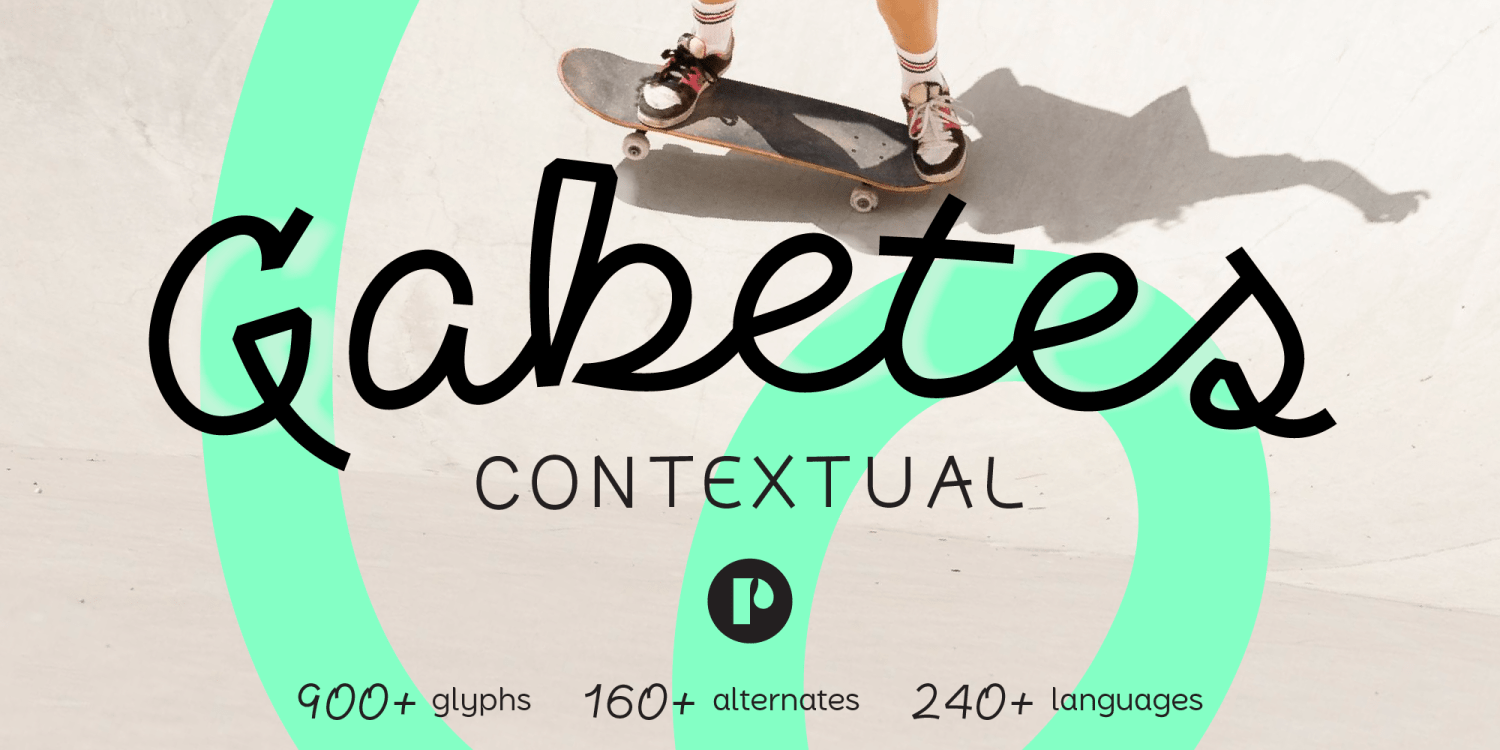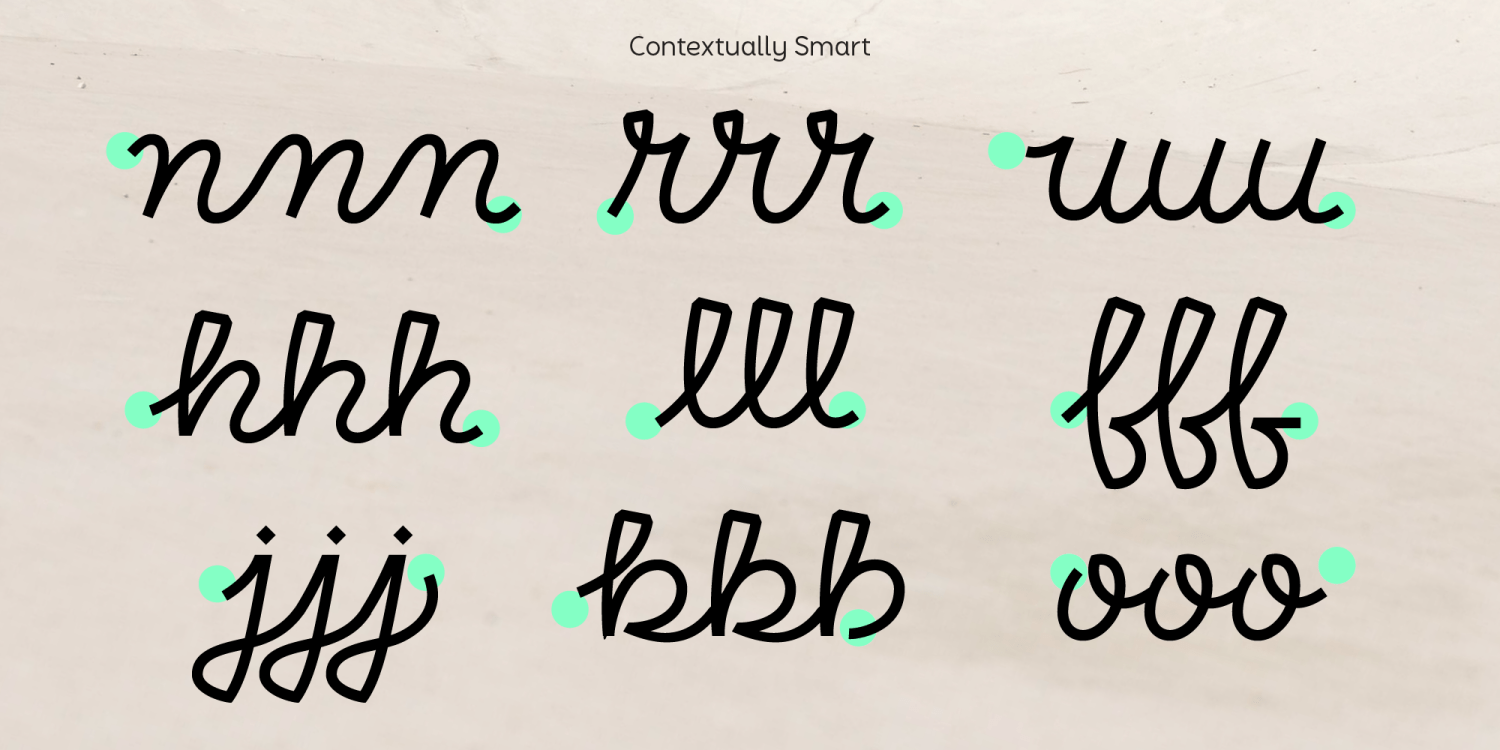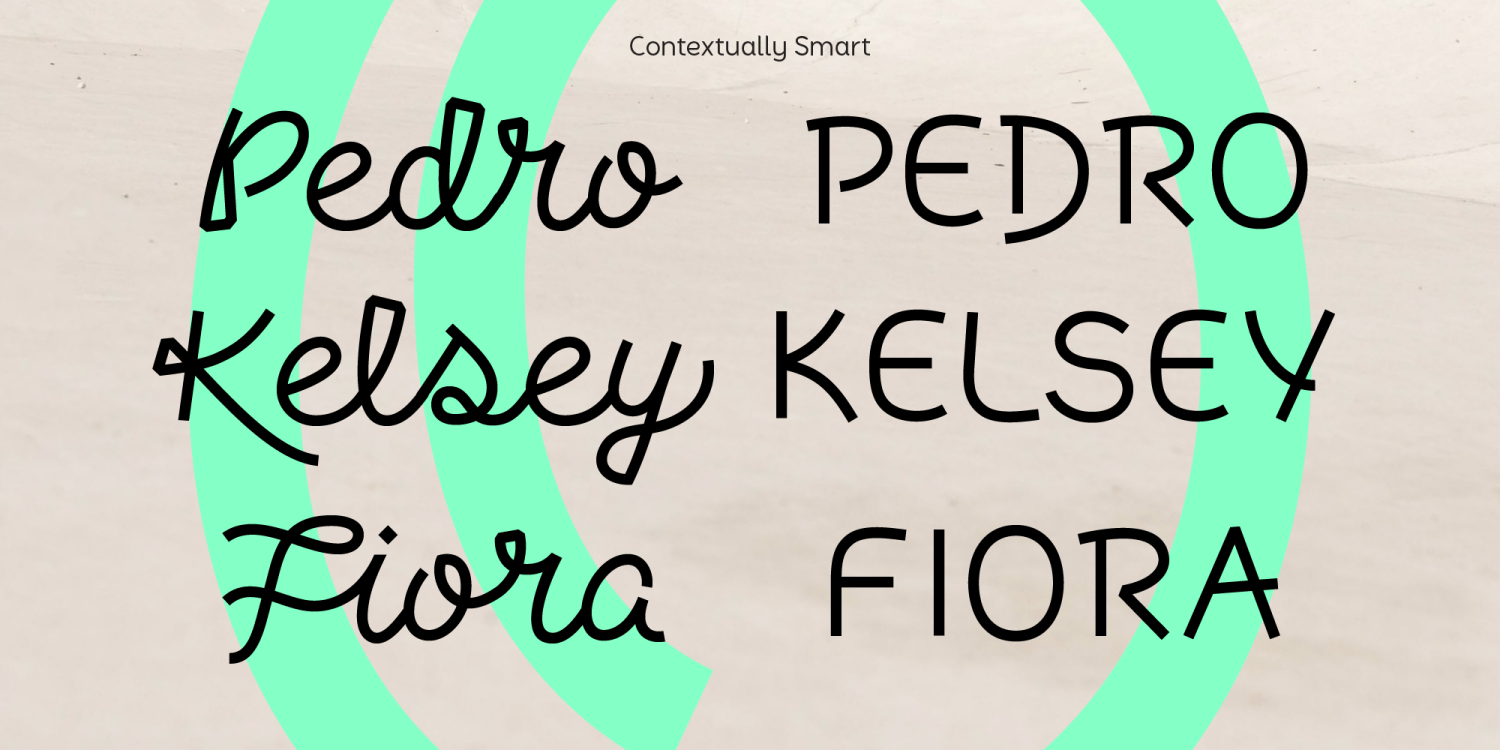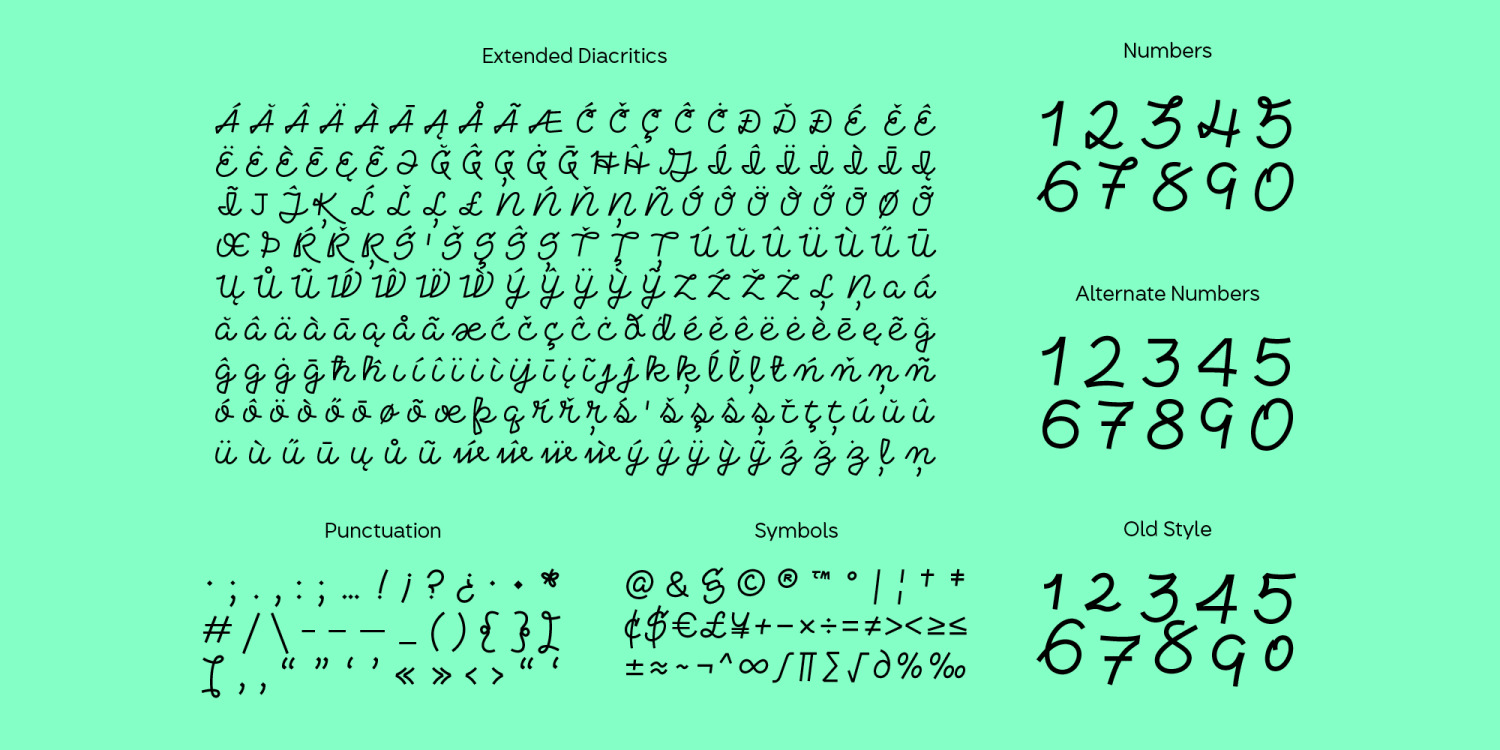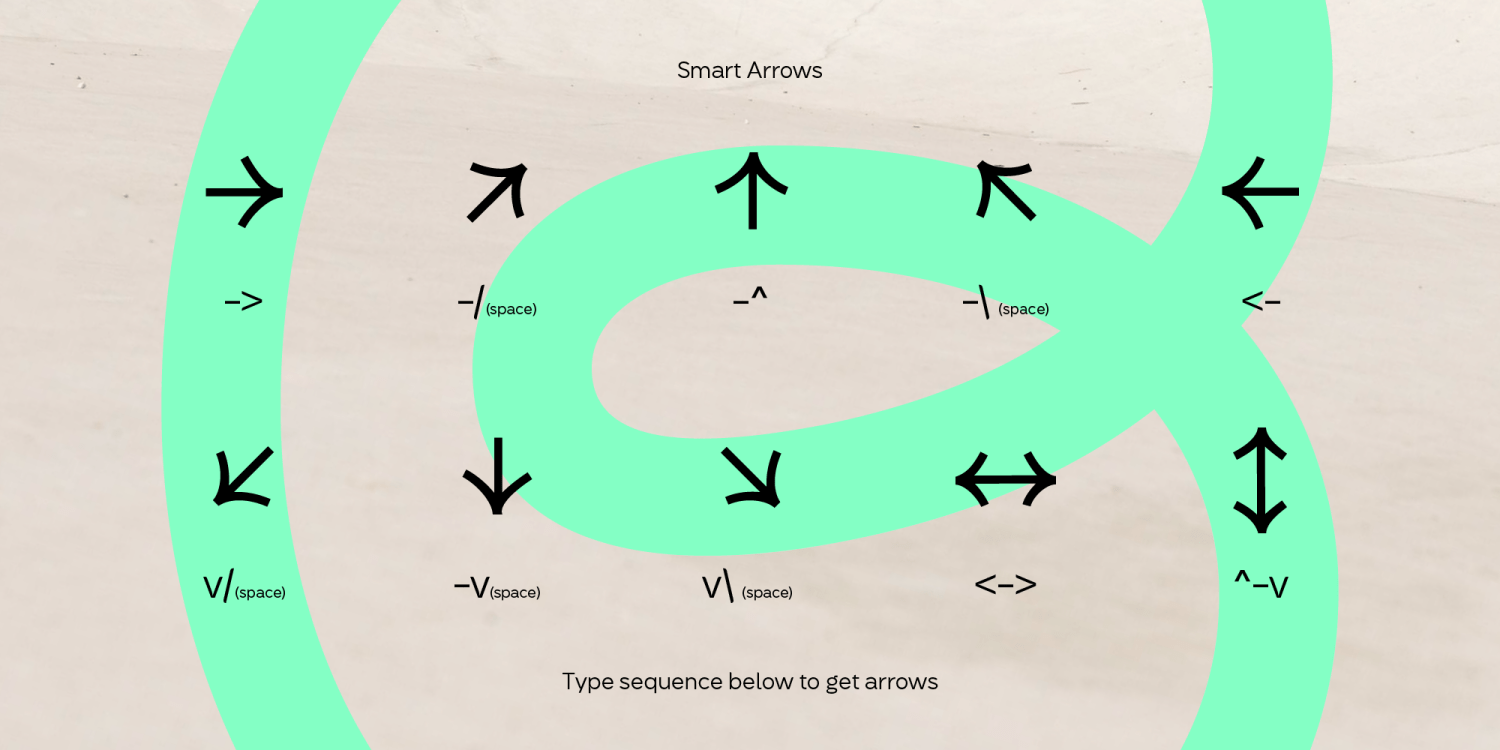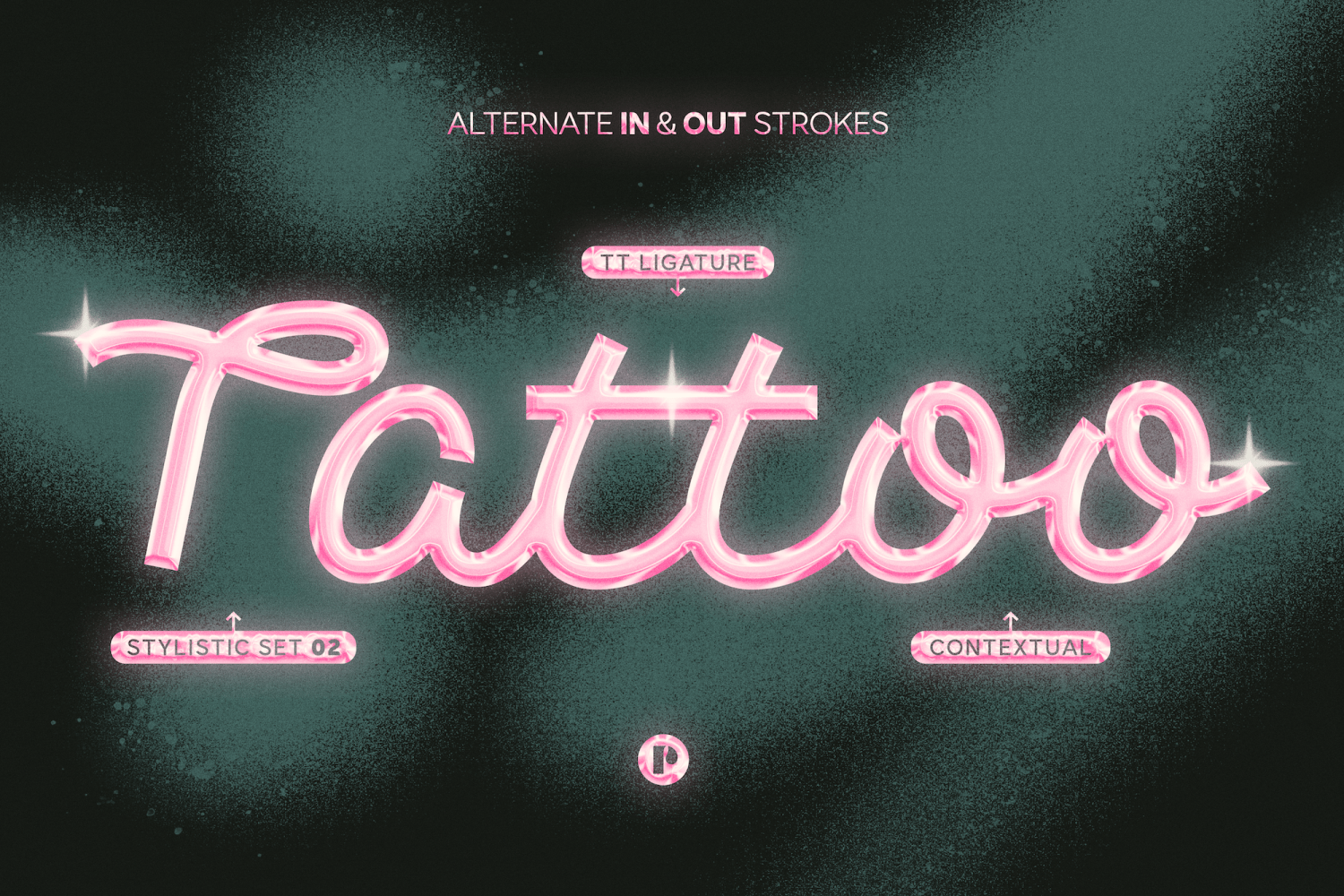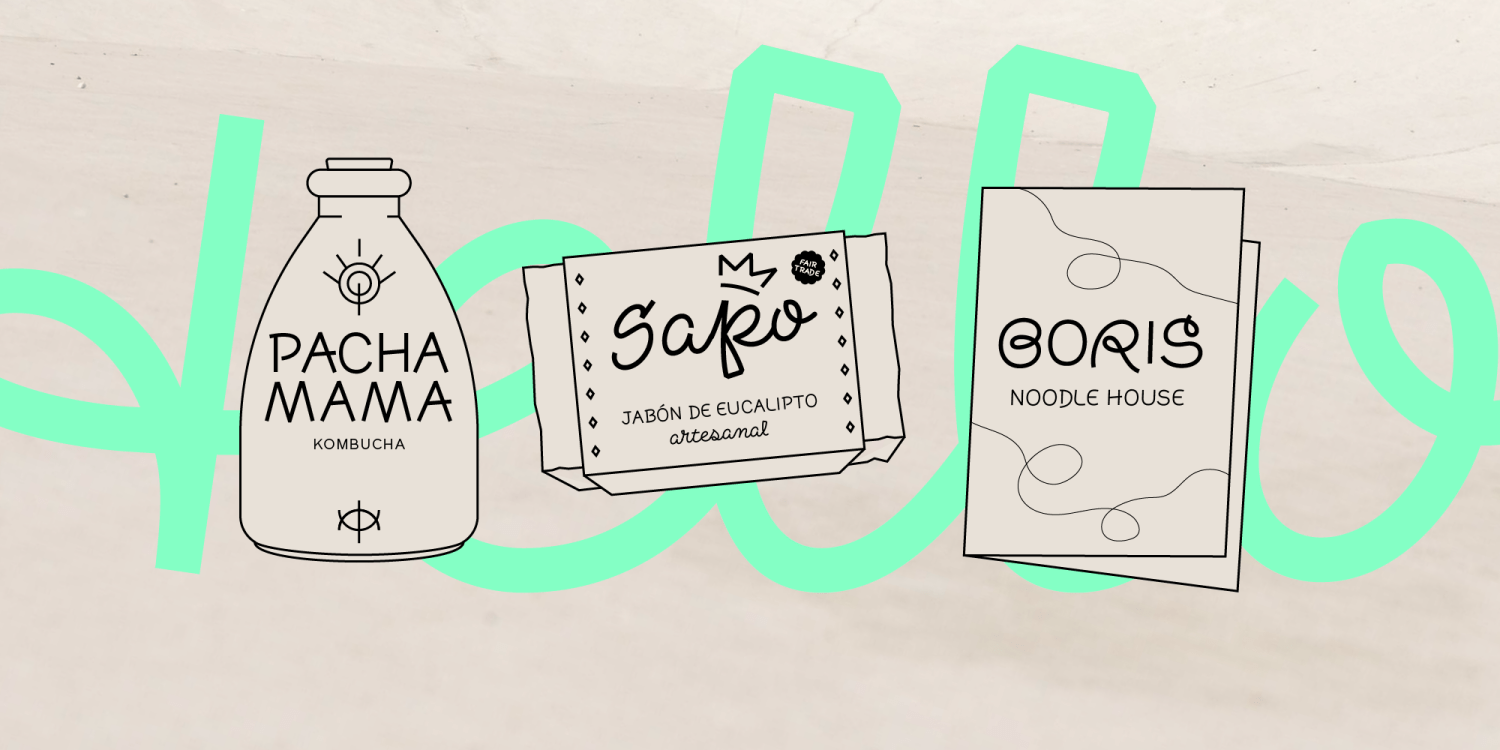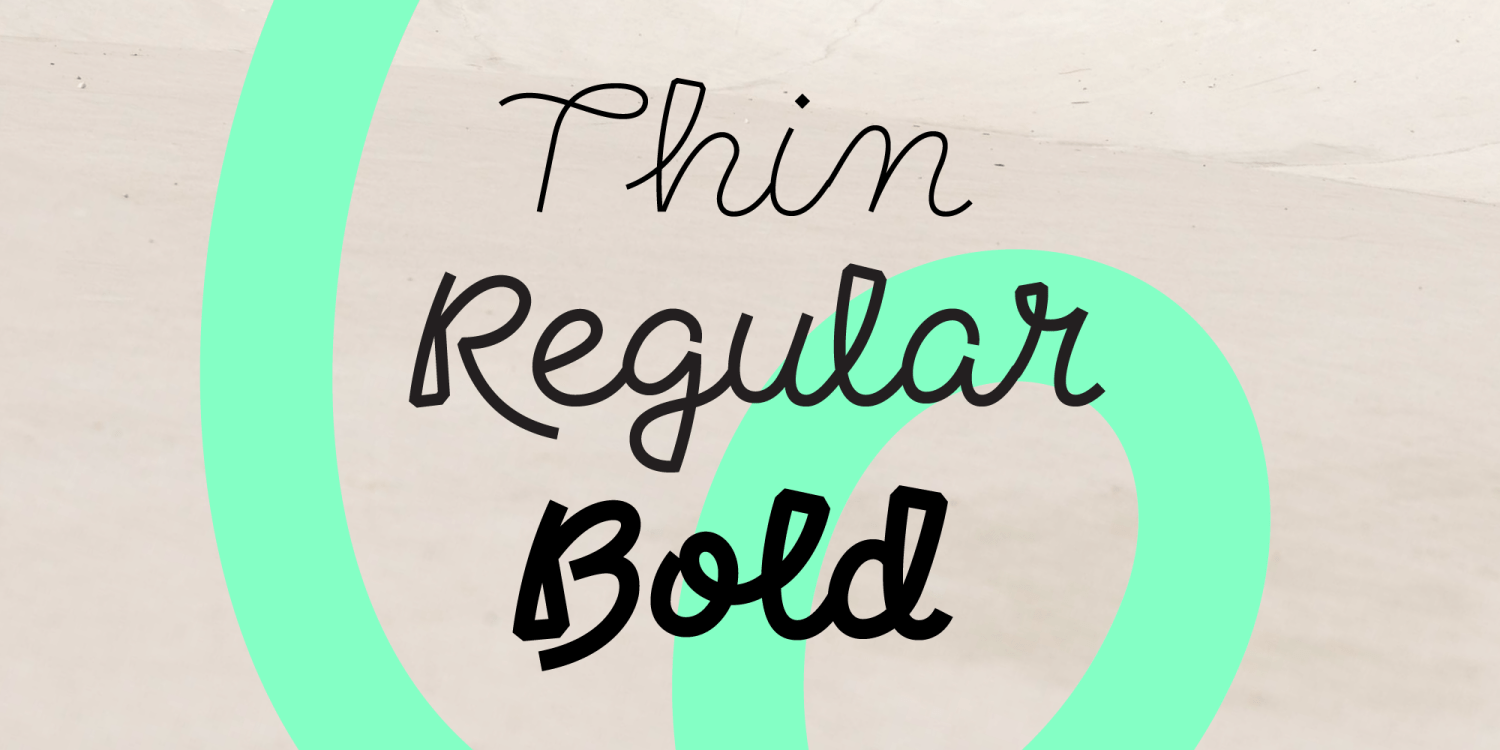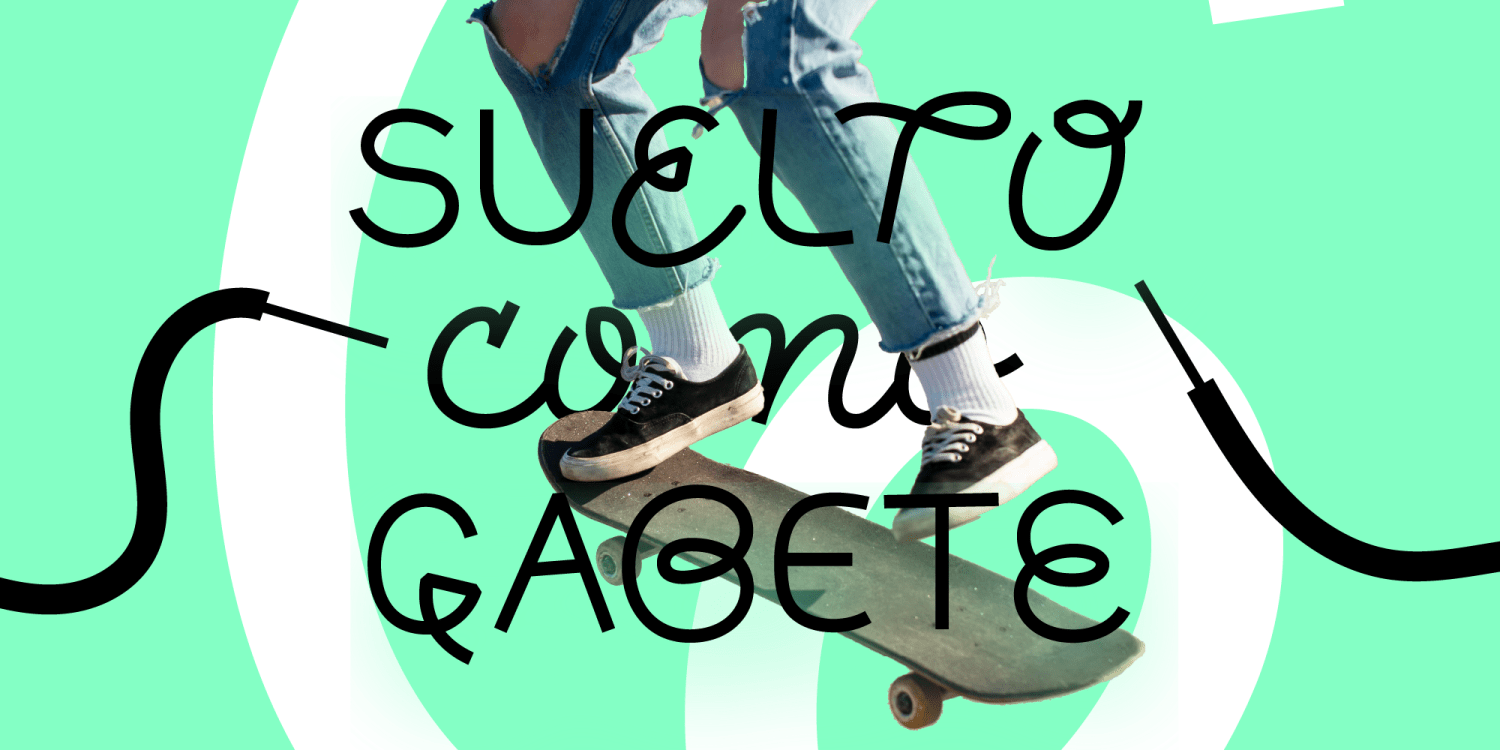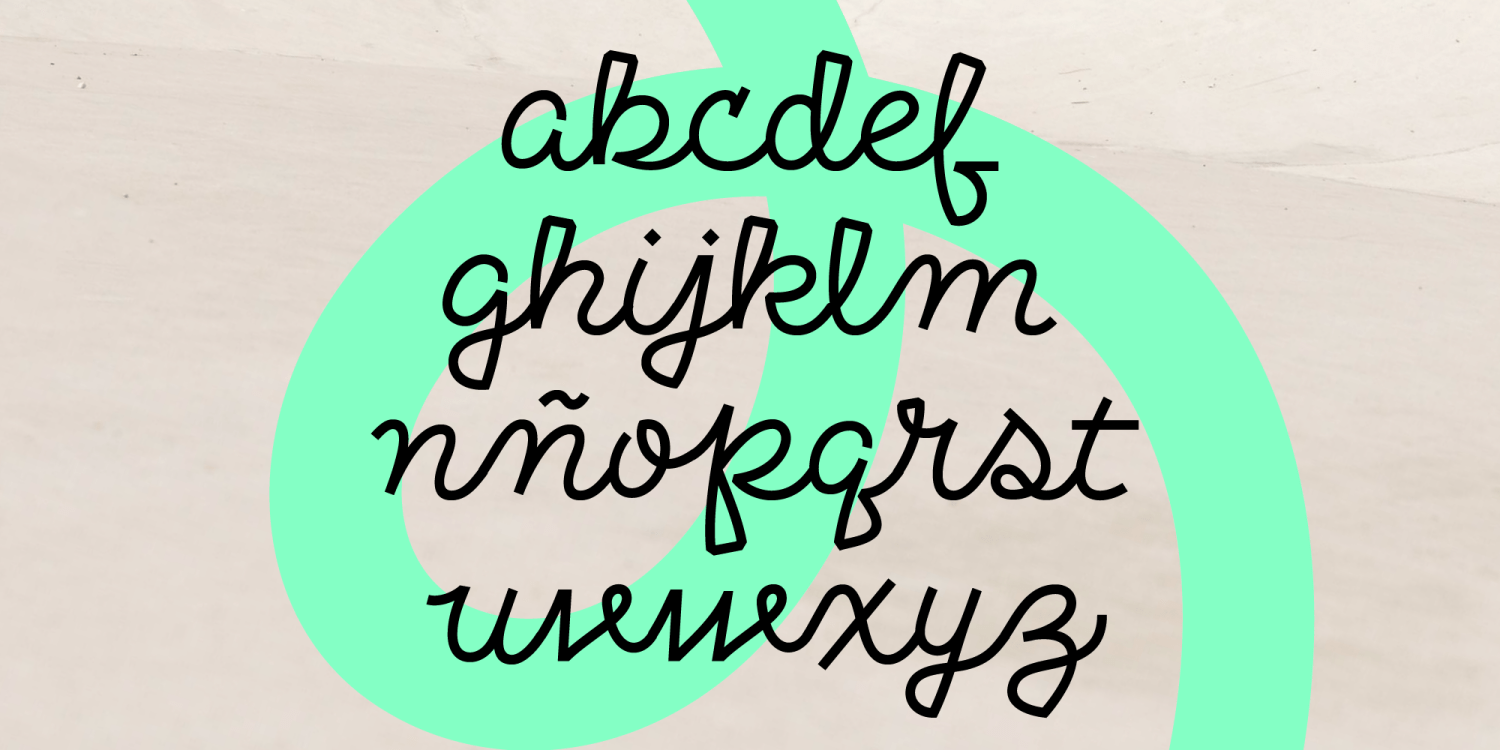
Gabetes
Font Family by Pedroglifos
Shoelaces are very much like handwriting. They’re never the same—as they intertwine freely in each and every step. Gabetes mimics this behavior by contextually tying letters depending on the order in which they appear. Furthermore, this intricately designed typeface even switches to a print version at all-caps casing, increasing legibility. This feature diversifies composition possibilities on its own and is taken a step further by the loopy alternate for each capital letter. Gabetes captures the tactile quality of shoelaces and brings it forth as a fun-to-use typeface ideal for projects in need of a free-spirited communicator and visually dynamic typesetting.